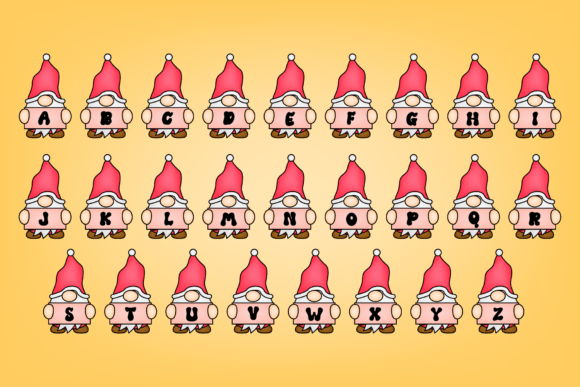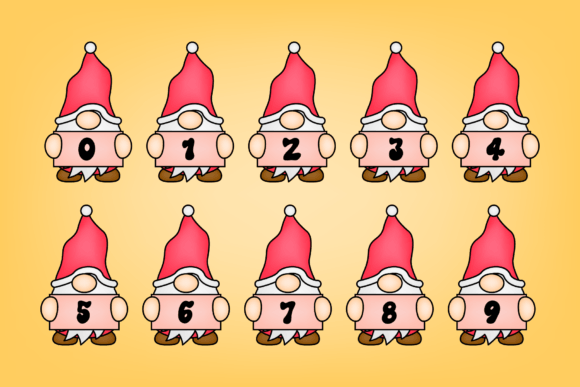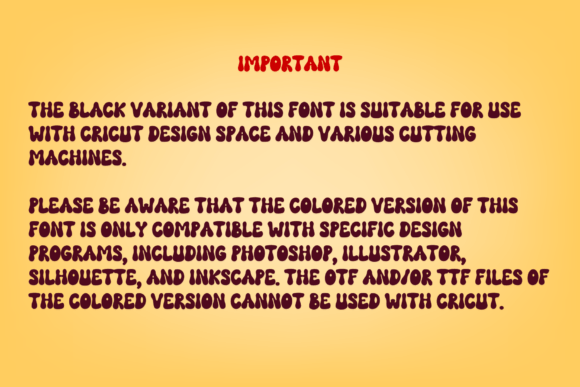
Introduction to Color Gnome Font
Remember that moment when you’re working on a design project and you’re struggling to find the perfect font to capture the festive spirit? You’ve scoured through countless options, but nothing seems to fit the bill. That’s where the Color Gnome Font comes in – a delightful, high-quality font that embodies the magic of Christmas.
As a designer, you’re always on the lookout for that special something that sets your project apart from the rest. The Color Gnome Font is a valuable design resource that can add a touch of playfulness and authenticity to your creative project. Whether you’re working on a blog post, logo, branding, or invitation, this font is sure to bring a smile to your audience’s faces.
Key Features of Color Gnome Font
- High-quality, hand-drawn design with a unique, playful style suitable for creative projects.
- Includes a comprehensive character set, covering a wide range of languages and special characters.
- Perfect for use in logos, branding materials, and other creative projects where a unique, eye-catching font is required.
Honest Review: Color Gnome Font
I recently had the chance to work with the Color Gnome Font, and I’m excited to share my honest thoughts. This font has been a game-changer for my creative project, offering a unique and high-quality design resource that’s perfect for any style.
- ✨ High-quality design: The font is crisp, clean, and visually appealing, making it perfect for any creative project.
- ⚠️ Limited character set: The font only includes a limited set of characters, which can be a problem if you need to use it for a project that requires a wide range of characters.
- ⚠️ Not suitable for body text: While the font is perfect for headings and titles, it’s not ideal for body text due to its bold and playful nature.
Overall, I’m really impressed with the Color Gnome Font. While it may have a few limitations, its unique design and high-quality features make it a valuable addition to any designer’s toolkit. I would definitely recommend it for creative projects where you need a bold and eye-catching font.
To get the most out of the Color Gnome Font, use it in combination with other high-quality design resources. Experiment with different font sizes, colors, and styles to create a unique and creative design. Consider using the font for headings or titles to add visual interest to your project.
The Color Gnome Font is ideal for creative projects that require a unique and eye-catching design. It’s perfect for logos, branding, and marketing materials, as well as free download design templates and other design resources. With its transparent background and high-quality design, this font is a valuable addition to any designer’s toolkit.